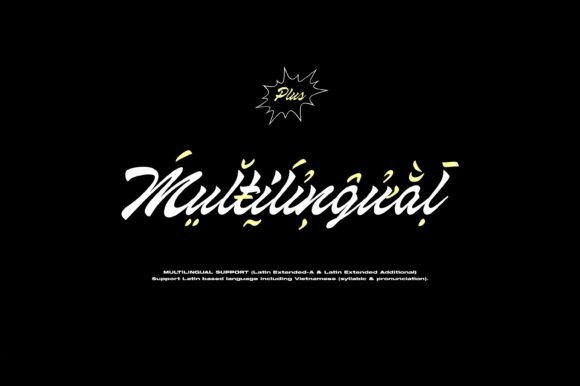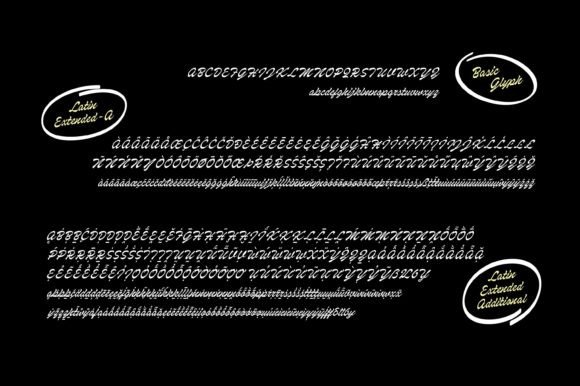
About Dosescript Font
“Dosescript” is more than just a typeface; it’s a classic casual script inspired by the legendary scripts from the 40s. Developed with sharpening and a touch of contrast, this font embodies a timeless aesthetic that harks back to a bygone era while maintaining relevance in modern design.
The retro charm of “Dosescript” is not confined to vintage applications; it extends seamlessly to modern design contexts. Whether you’re working on magazine headlines, advertisement headlines, or any other contemporary design project, this font proves versatile, adding a touch of nostalgia and character.
The sharpened and subtly contrasting features of “Dosescript” contribute to its visual appeal, making it a refined choice for various typographic elements. It strikes a balance between classic elegance and contemporary readability, offering a typeface that can adapt to the demands of diverse design projects.
In essence, “Dosescript” is a bridge between the past and the present, embodying the spirit of classic scripts while being well-suited for the demands of modern design. Incorporate it into your projects, and witness how it brings a touch of timeless sophistication to your headlines and other typographic elements.